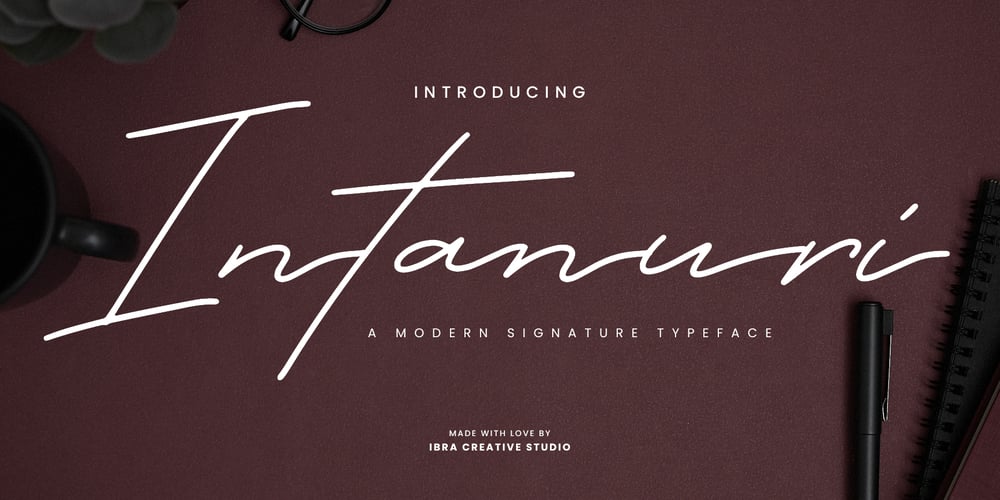
Intanuri Font Family was designed by Roisatul Azizah and published by IbraCreative. Intanuri contains 1 styles and family package options. Intanuri – A Modern Signature TypefaceIntanuri, a modern signature typeface, epitomizes contemporary elegance with its sleek lines and fluid strokes. Each letter is meticulously crafted to emulate the sophistication of a handwritten signature, blending personalized flair with a sleek, modern aesthetic. The effortless curves and balanced proportions of Intanuri create a distinctive rhythm, allowing it to seamlessly adapt to a myriad of design applications, from branding to digital media. This typeface captures the essence of modernity while retaining the timeless charm of a signature, making Intanuri a versatile choice for those seeking a sophisticated and contemporary typographic solution that leaves a lasting impression.Intanuri is perfect for branding projects, logo, wedding designs, social media posts, advertisements, product packaging, product designs, label, photography, watermark, invitation, stationery, game, fashion and any projects.Fonts include multilingual support for; Afrikaans, Albanian, Czech, Danish, Dutch, English, Estonian, Finnish, French, German, Hungarian, Italian, Latvian, Lithuanian, Norwegian, Polish, Portuguese, Slovak, Slovenian, Spanish, Swedish.